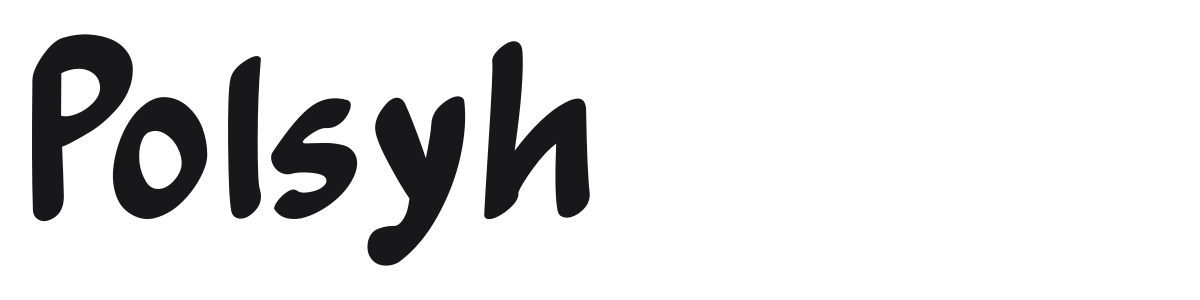
Polsyh
by adroitwhiz
Polsyh is a thick, marker-style handwritten face from adroitwhiz with bold strokes that feel like someone went at it with a chunky felt-tip pen. The letterforms are casual and slightly uneven in a way that keeps things friendly and approachable rather than sloppy. Works well for headlines, posters, and playful branding where you want real hand-drawn energy with enough weight to hold its own at large sizes.